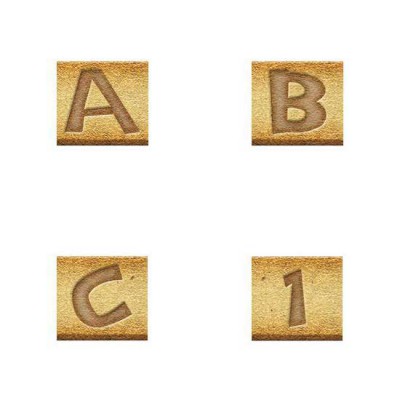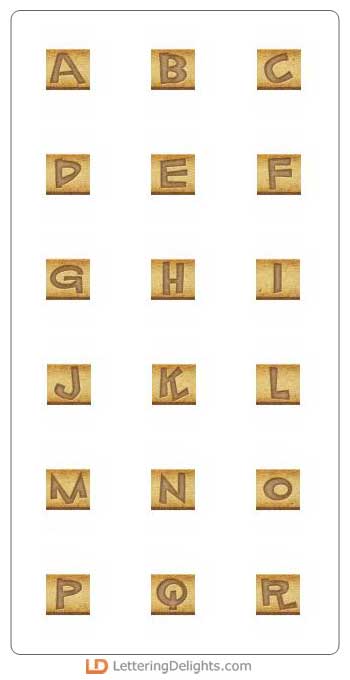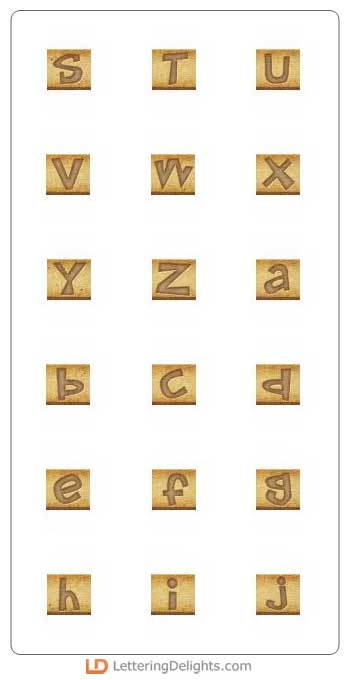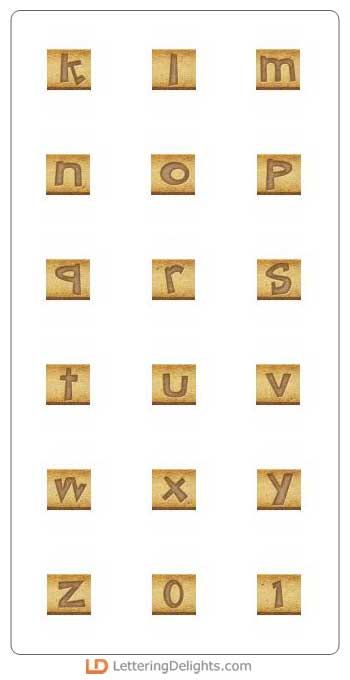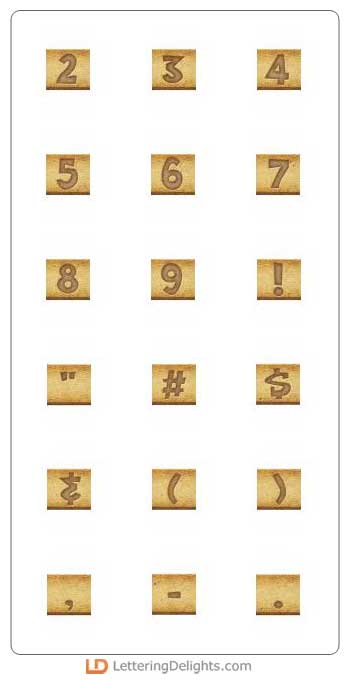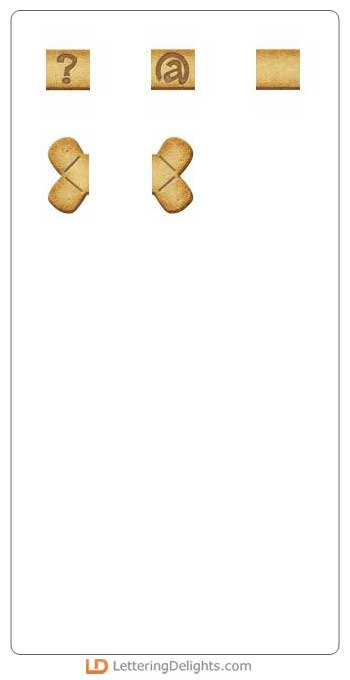
Come and get it, Max! It's time for your treat! This fun alphabet creates a realistic looking doggy treat, perfect for headings and titles.
Tip: surround your word with the right and left brackets { and } to include the ends of the treat. Also use the underscore _ to add a space in the middle of the "doggie treat".